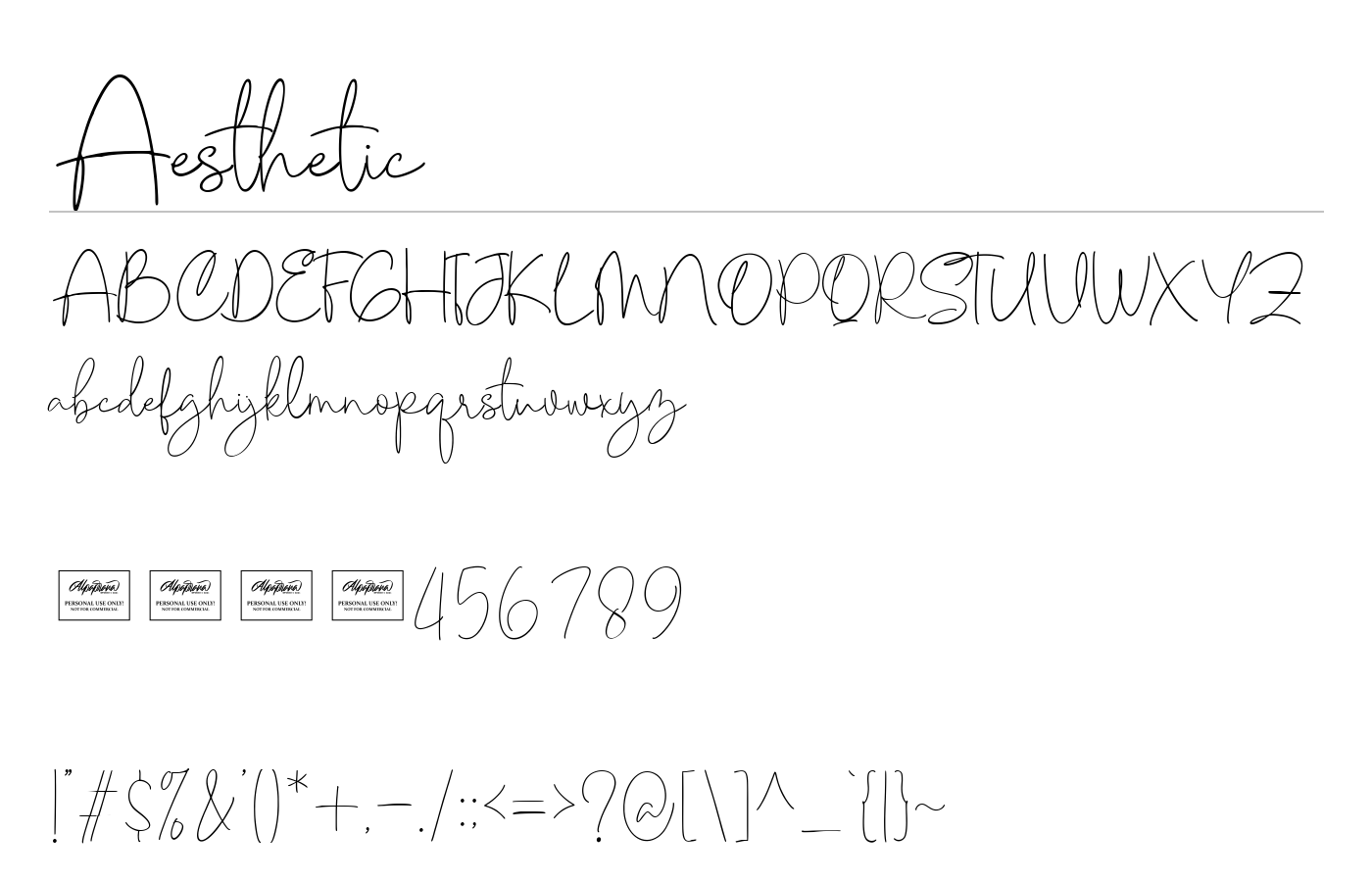
Aesthetic Font is a delicate, handwritten script with a light weight and tall, slender letterforms that bring a whimsical and elegant feel. Its flowing strokes and airy spacing make it perfect for creative projects, such as invitations, branding, and social media, where a personal and artistic touch is desired. This font shines in contexts that require a modern, stylish, and feminine look.
Aesthetic Font
About Aesthetic Font
| Font family | Aesthetic Font |